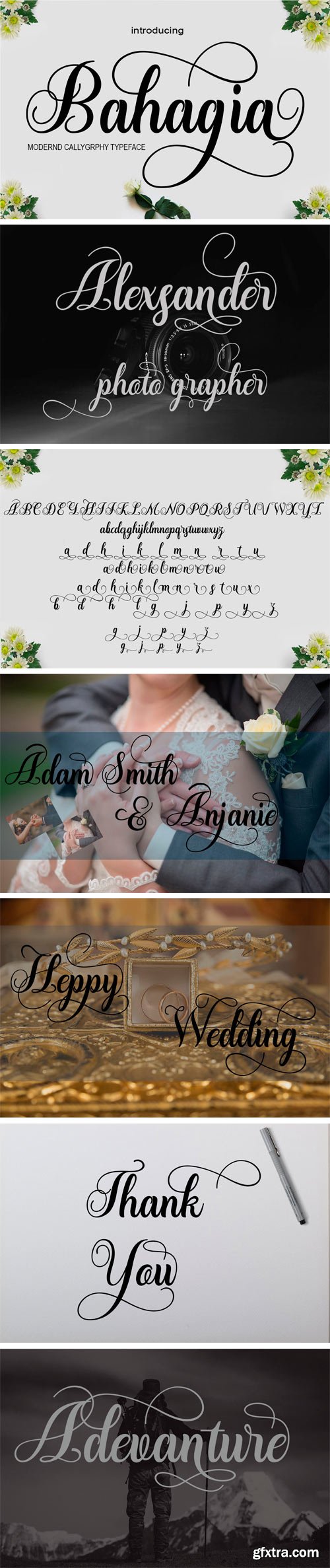
Bahagia Scrip Modern Calligraphy This font is designed with handwriting, and has a modern and unique calligraphy form, its writing style is very natural. Bahagia script has a very unique style of calligraphy, very suitable for use in modern design works.can be used for business cards and wedding.